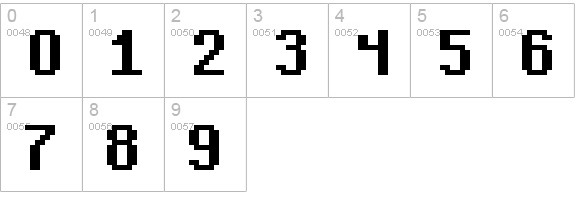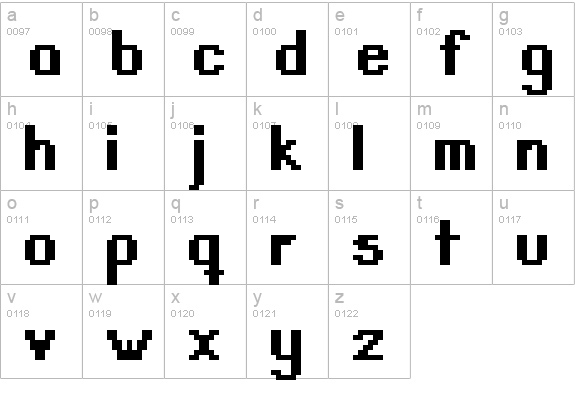
Teachers Pet Sans Serif Bold Font Details
Teachers Pet Sans Serif Bold is a strong, high-contrast variant in the Teachers typeface family \xE2\x80\x94 well suited to headlines, attention-grabbing titles, and strong calls-to-action.
Teachers Pet Sans Serif Bold is a stylish and versatile font designed specifically for educators who strive to create visually captivating teaching materials. With its bold and confident letterforms, this font exudes a sense of authority and professionalism, making it perfect for headlines, titles, and any text that needs to grab attention. The strong and legible characters of Teachers Pet Sans Serif Bold make it an excellent choice for both print and digital media. Whether you're designing lesson plans, creating educational presentations, or developing engaging worksheets, this font will add a touch of sophistication to your work. One of the greatest advantages of Teachers Pet Sans Serif Bold is that it is freely available to download at FontsMarket.com. This means that you can enhance your teaching materials without any additional cost. As an educator, you can now access a high-quality font that will elevate your creations and make them stand out. The versatility of Teachers Pet Sans Serif Bold allows it to seamlessly integrate into various educational contexts. Its clean and modern design ensures readability across different platforms and sizes, making it suitable for both small classroom handouts and large-scale displays. Teachers Pet Sans Serif Bold is a typeface that empowers educators to communicate their ideas effectively. Its bold and assertive nature commands attention, while its professionalism and clarity convey authority. Download this font for free at FontsMarket.com and elevate your teaching materials to new heights.